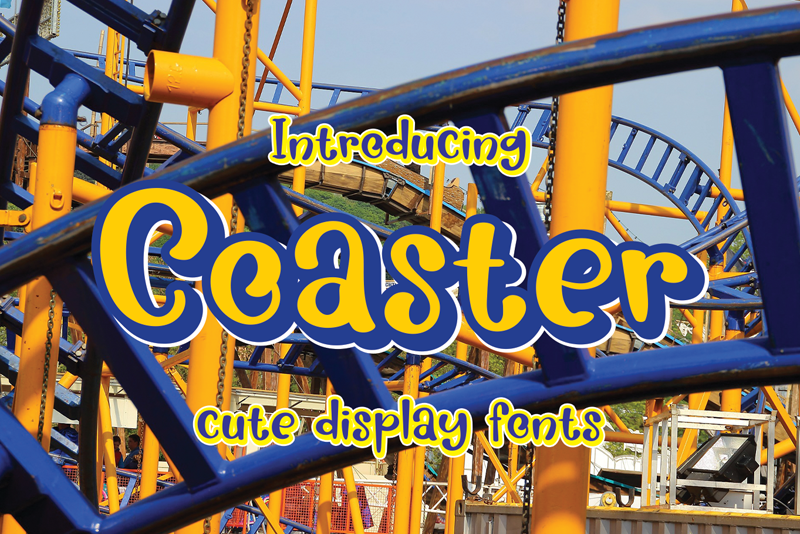
Coasters is a cute display font. Clean and a little bit quirky, this font is the perfect fit for all of your logos, branding, social media, and crafty DIY projects. Attention : Coasters handwriting Font is prohibited to use this font for commercial purposes or for profit without the permission of the author/admin, without being known to use this font without permission, will be subject to sanctions 5x the specified price. This font is used only for demos (Demo license) If you want to use this font for commercial use please contact email: erikluluk0@gmail.com or click the link below: https://www.creativefabrica.com/product/coasters/ref/745146/ If you want to see more other fonts, please click:https://www.creativefabrica.com/designer/erik-studio/ref/745146/ Any donations are very appreciated. Paypal account for donation: https://paypal.me/eriksupriyant thanks. |